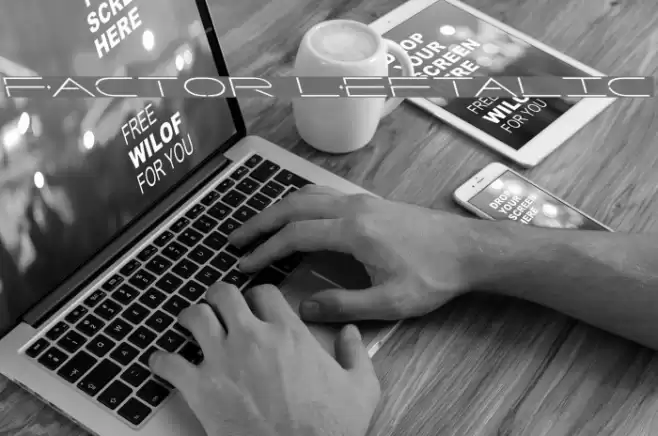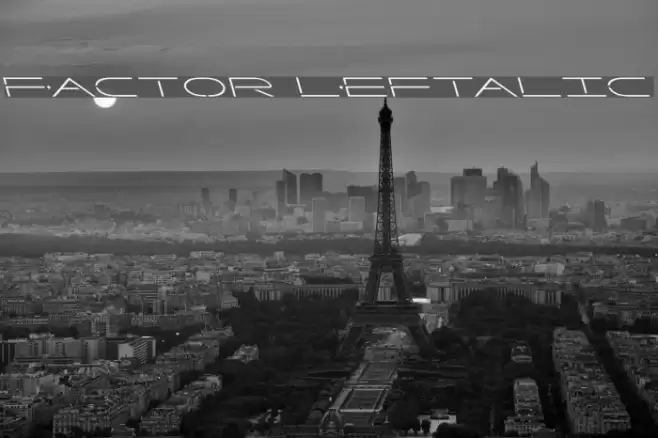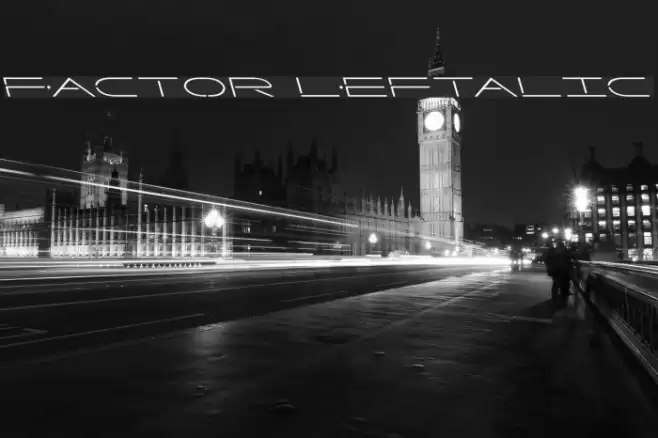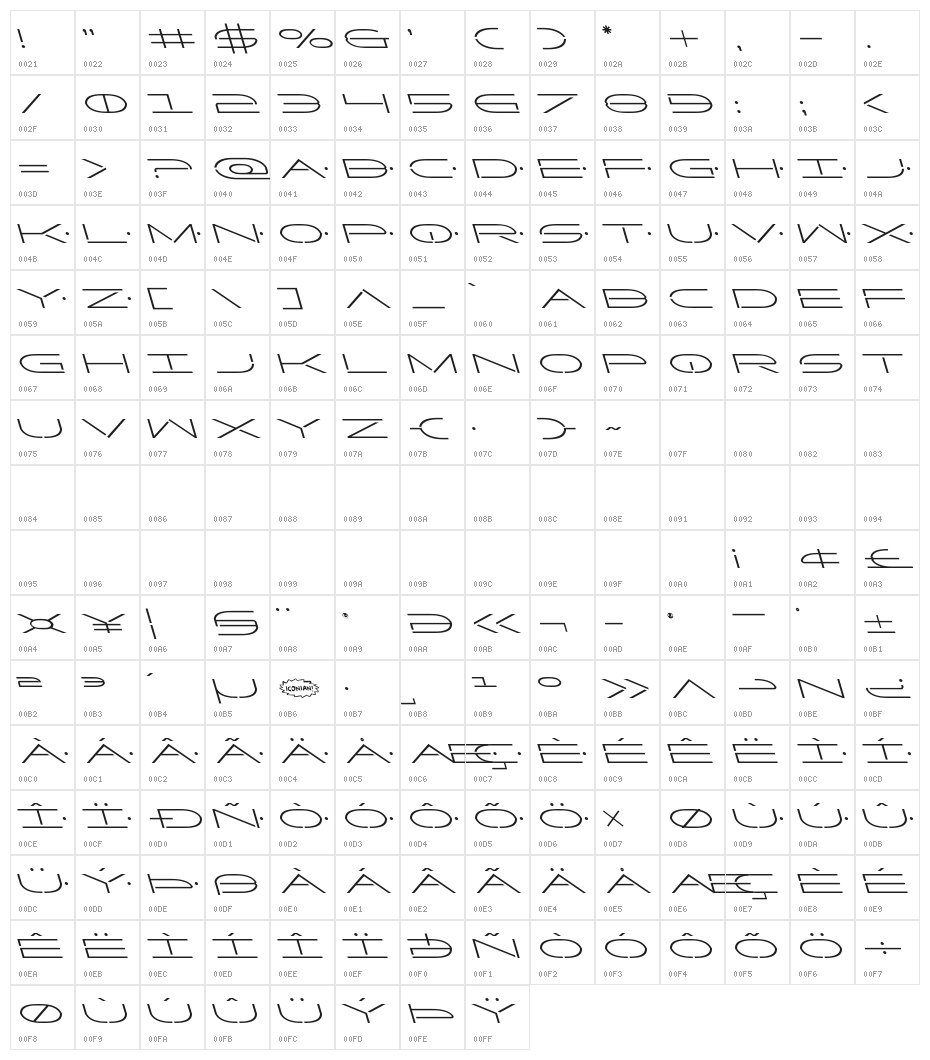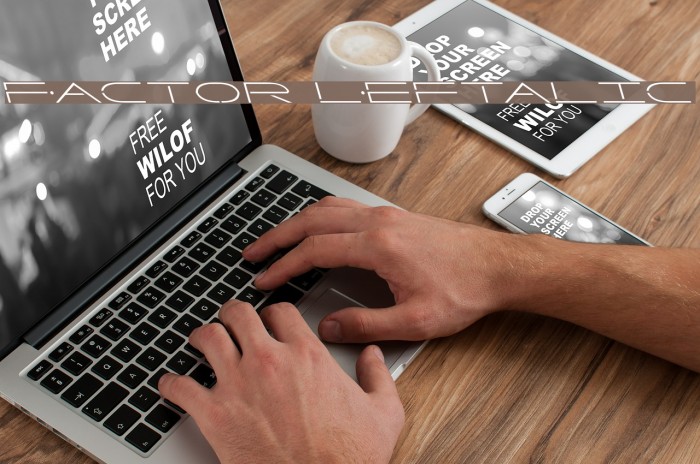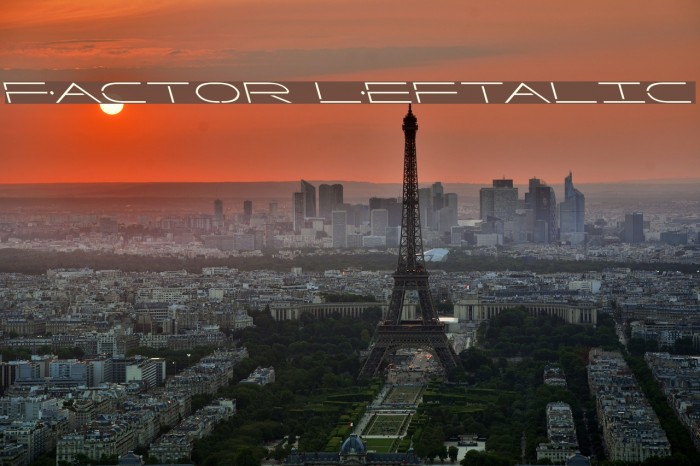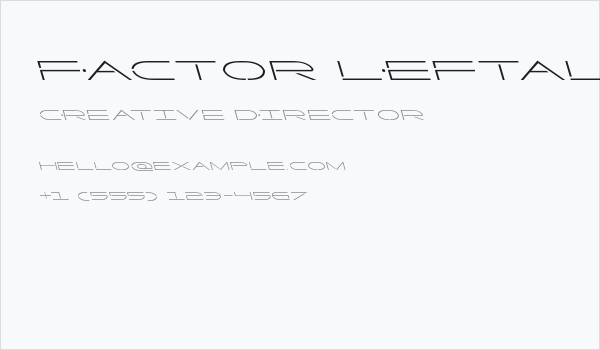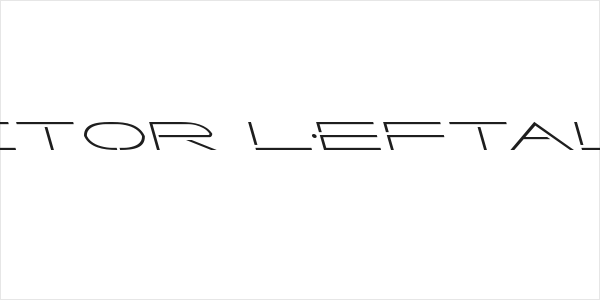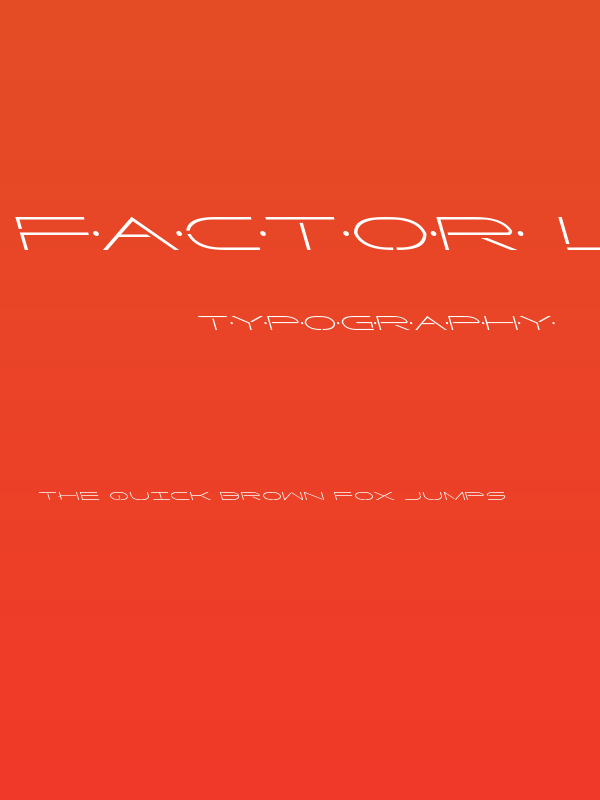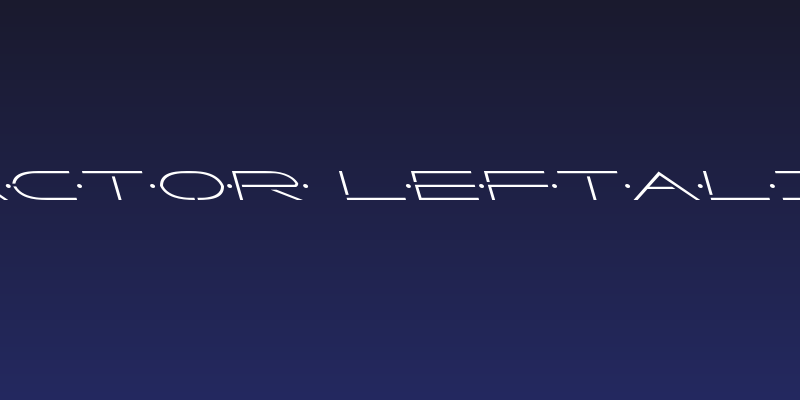
Factor Leftalic Font
Factor Leftalic Description
This font features a futuristic and geometric design with a distinct left-leaning italic style. The characters are constructed with clean, sharp lines and a minimalistic approach, incorporating unique cutouts and angles that give it a modern and technical appearance. The uppercase and lowercase letters maintain a consistent style, while the numerals and special characters complement the overall aesthetic. The font's design is both sleek and innovative, making it suitable for projects that require a contemporary and avant-garde look.
A futuristic, geometric font with a left-leaning italic style and unique cutouts from Sci-fi fonts.
- Proposed Projects: Ideal for technology branding, sci-fi themed designs, modern advertising, and innovative product packaging.
- Overall Style: Futuristic